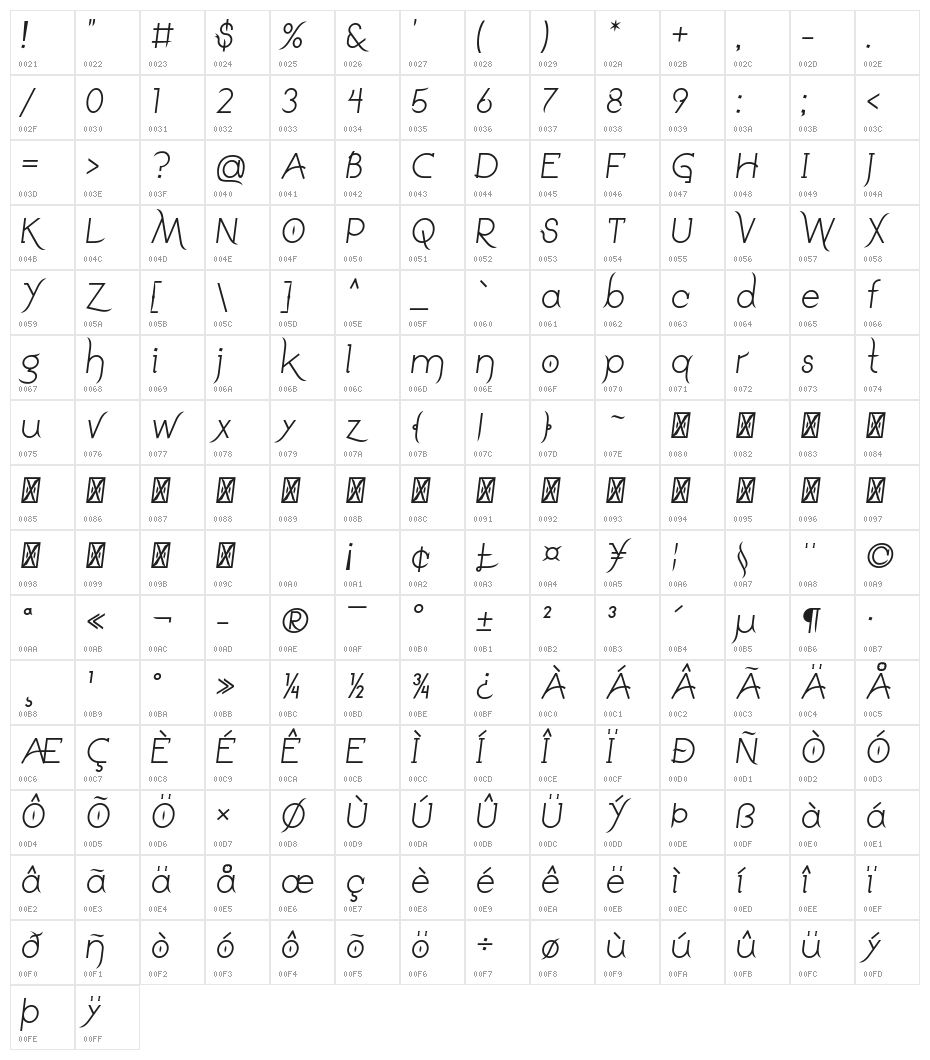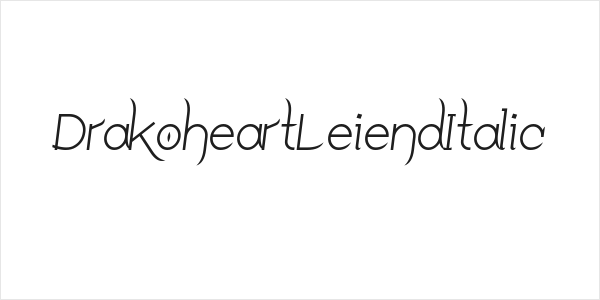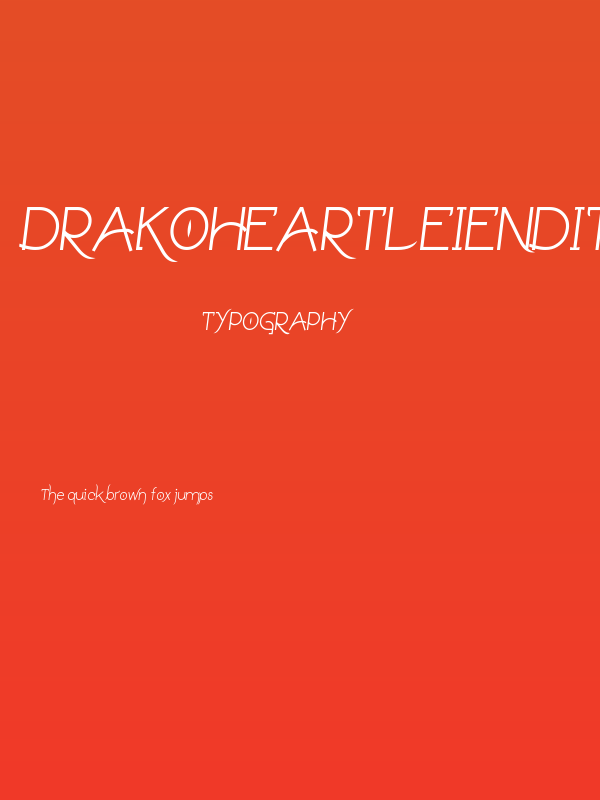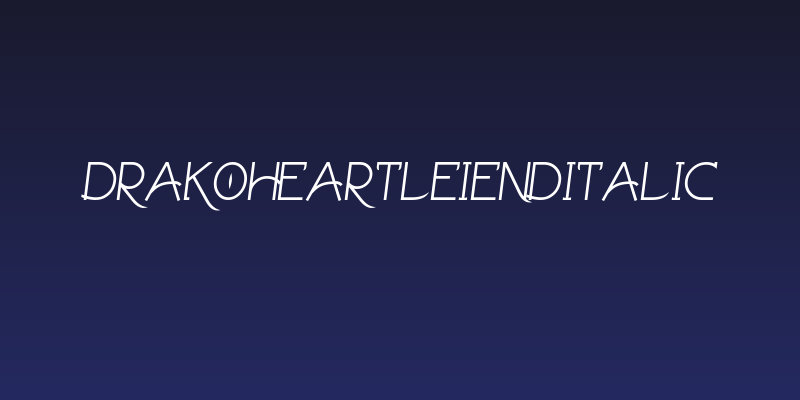
DrakoheartLeiendItalic Font
DrakoheartLeiendItalic Description
This font features a unique and artistic style with a modern twist. The letters are elegantly curved, with a slight slant that gives them an italicized appearance. The uppercase letters are distinct with sharp angles and elongated forms, while the lowercase letters maintain a smooth and flowing design. The numerals are consistent with the overall style, offering a cohesive look. Special characters are creatively integrated, maintaining the font's artistic flair. The overall design is both sophisticated and playful, making it suitable for a variety of creative applications.
| Proposed Projects | Ideal for creative projects such as branding, invitations, and artistic posters. |